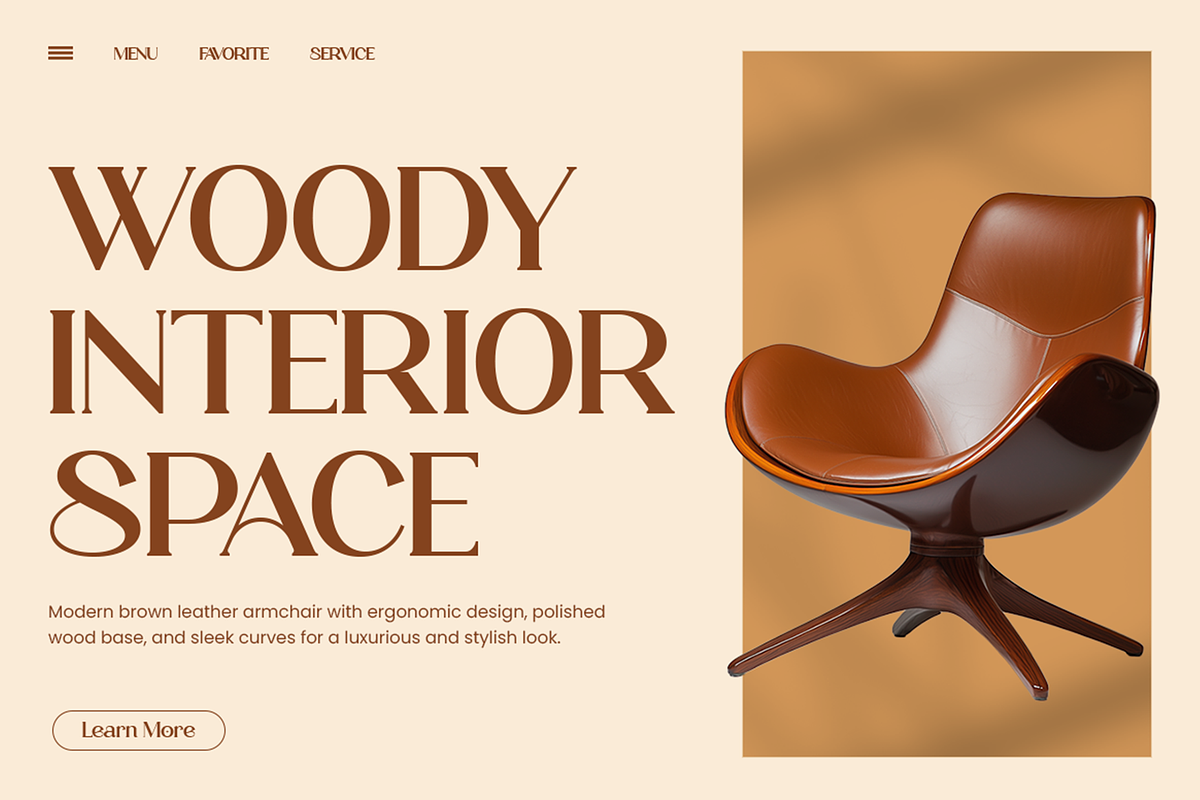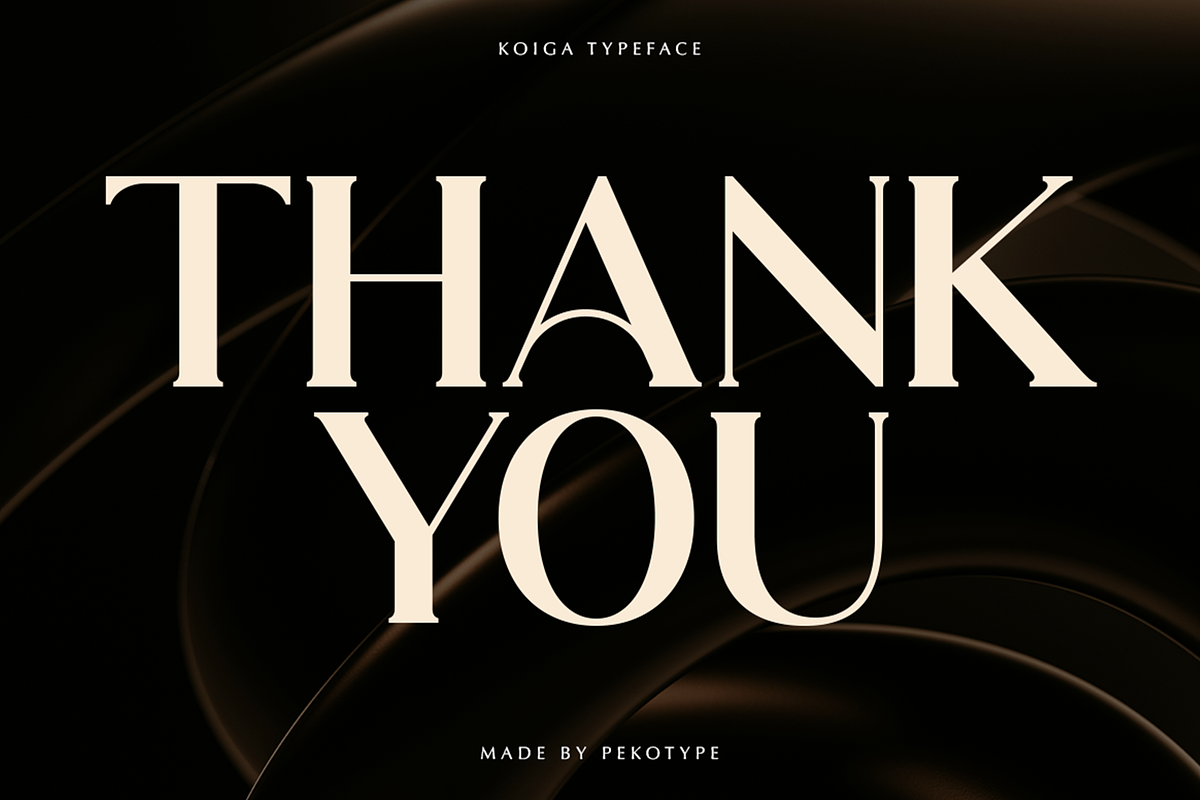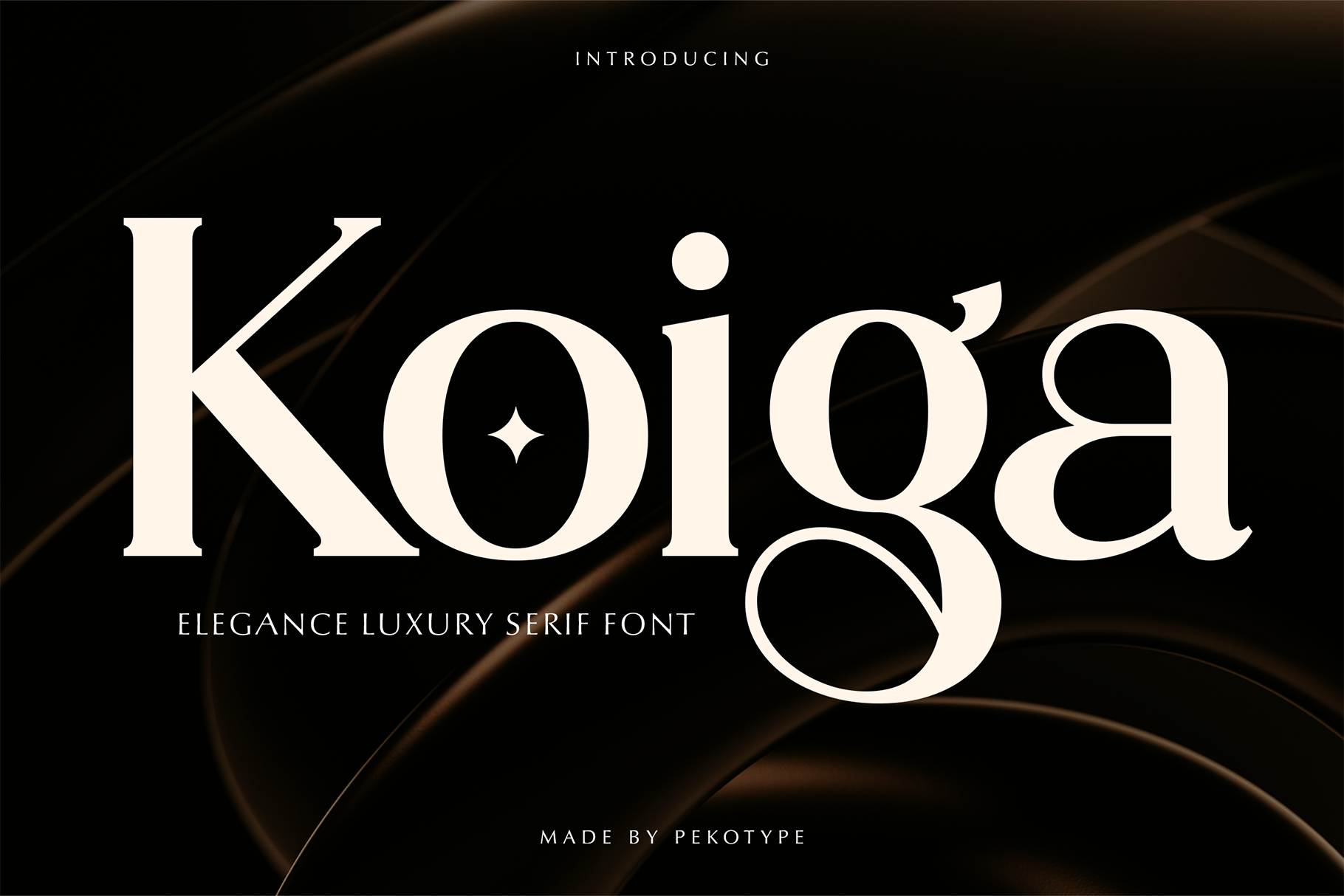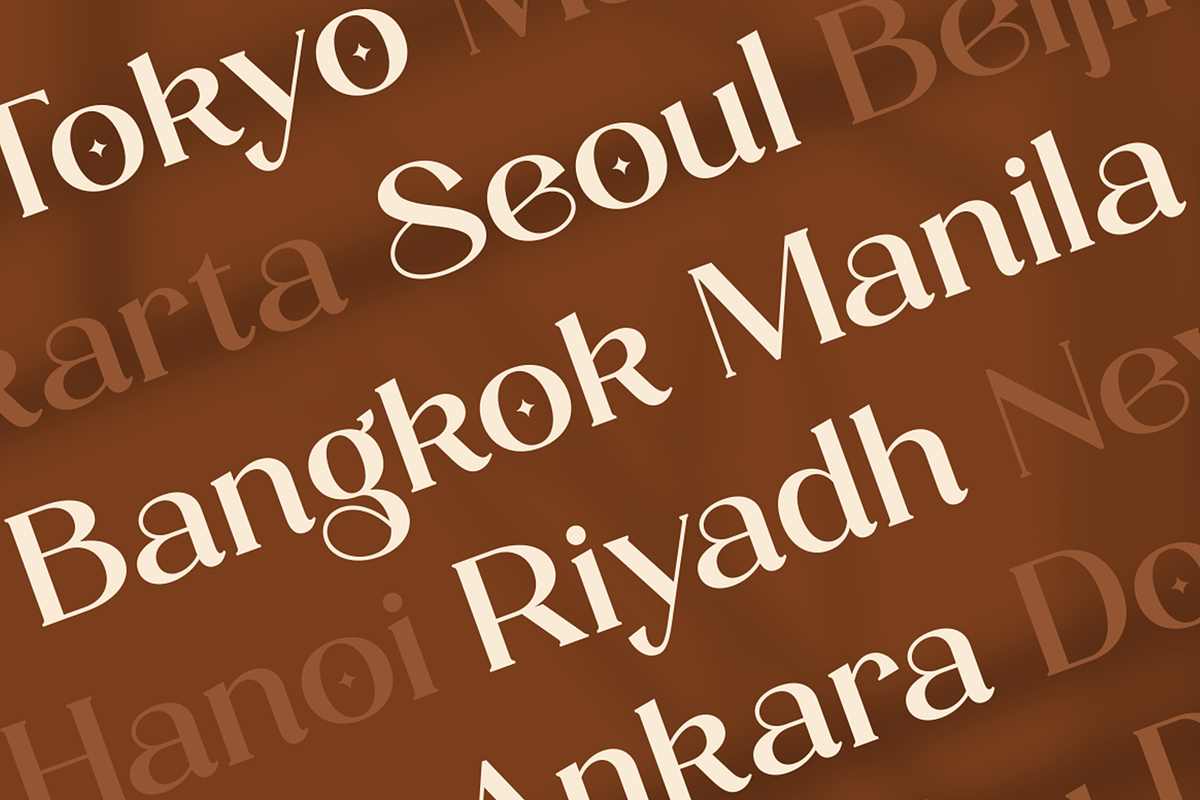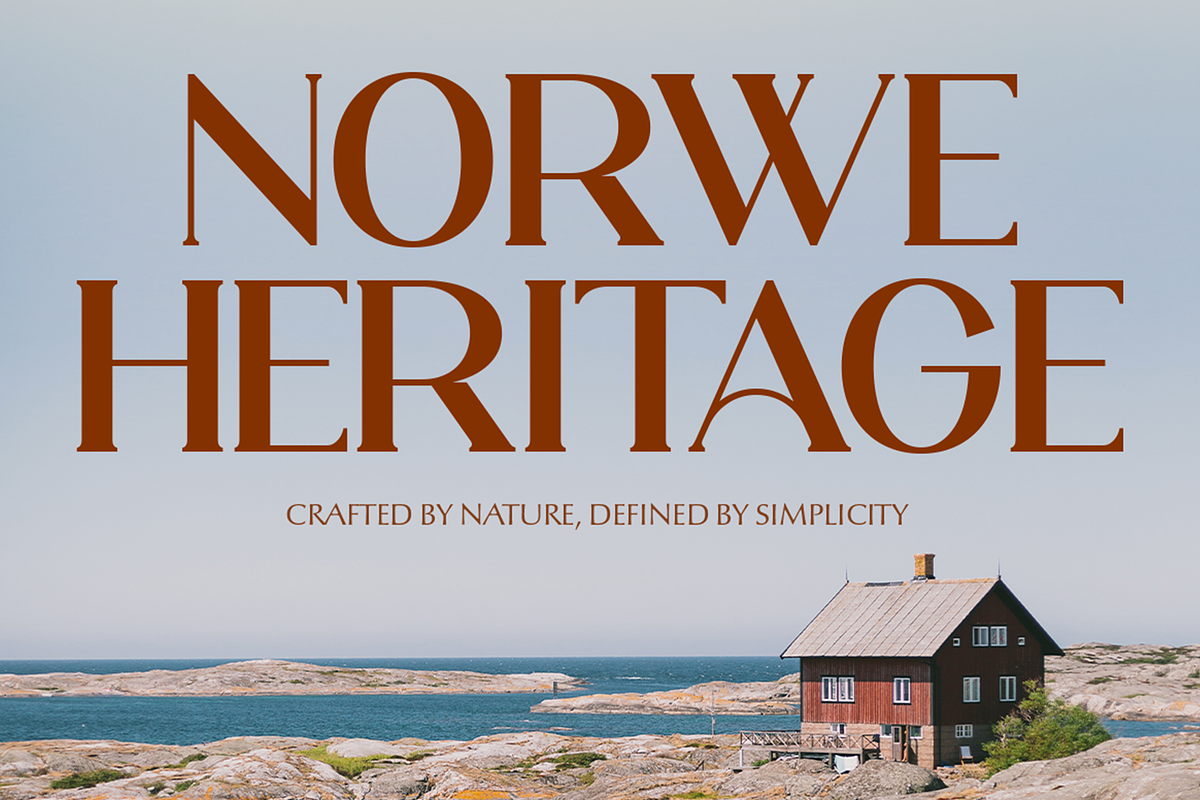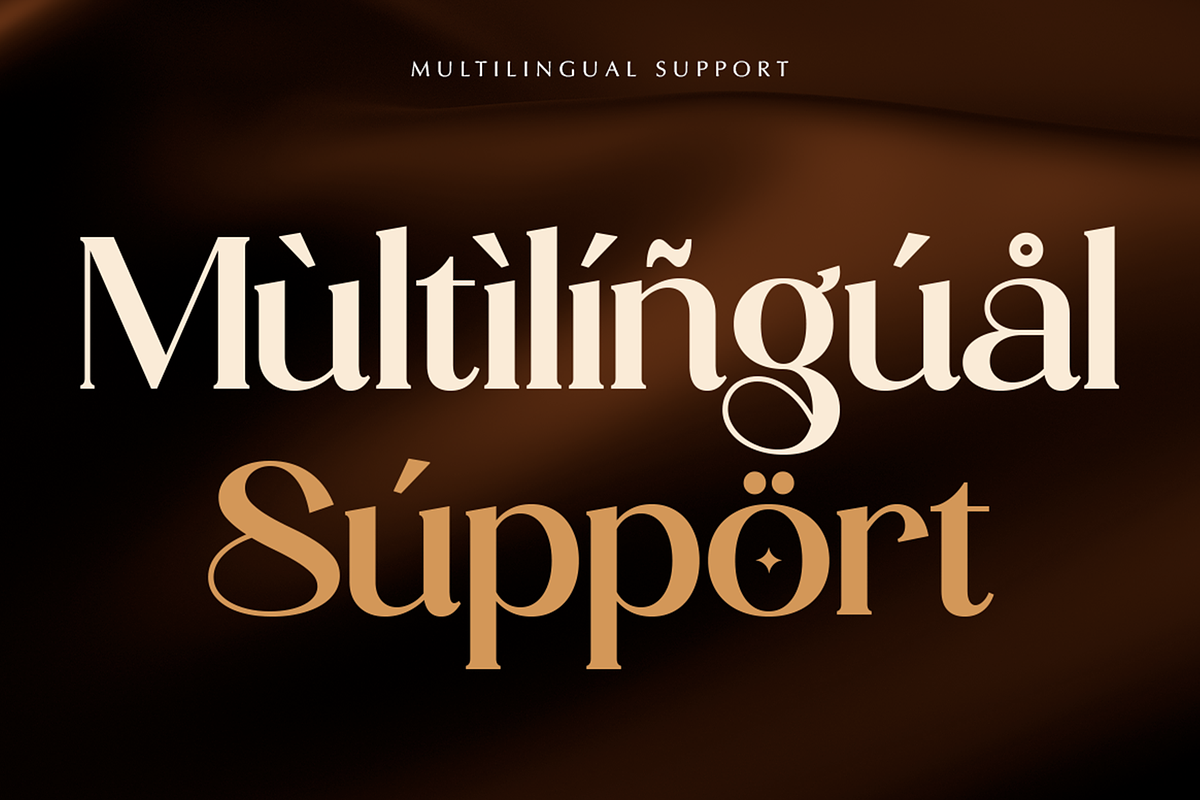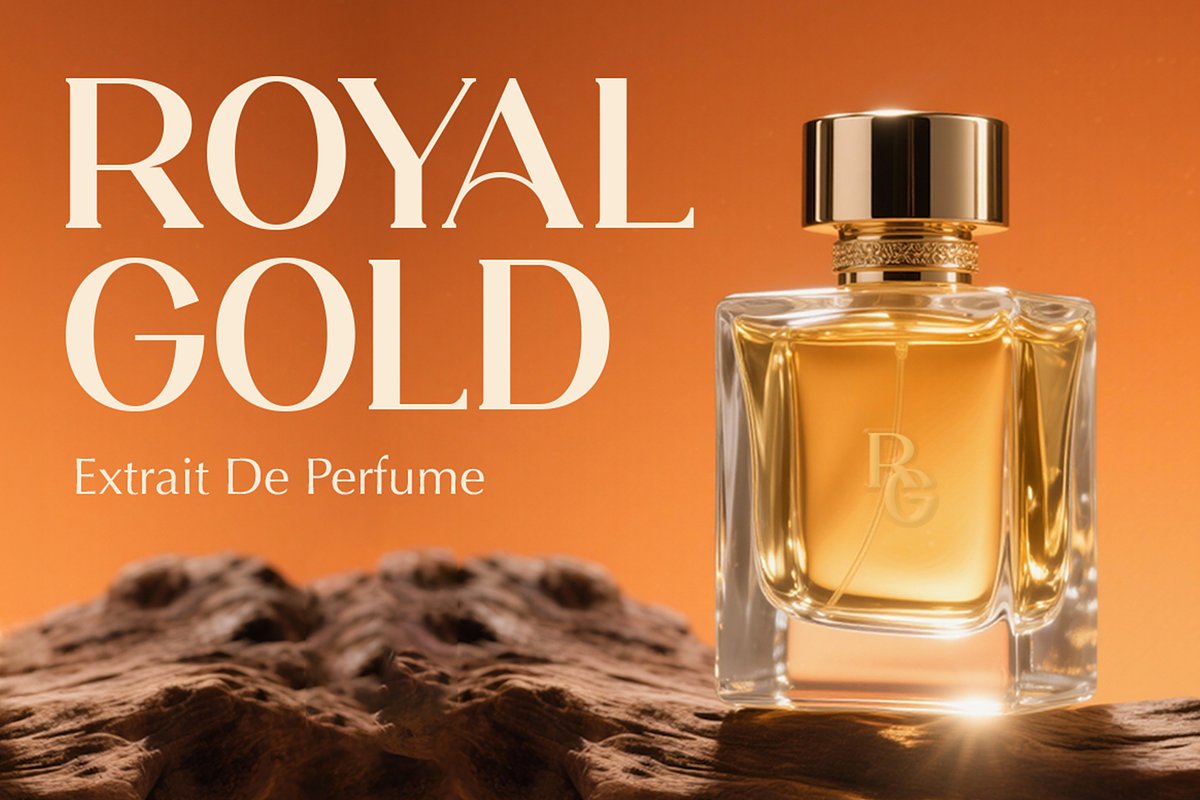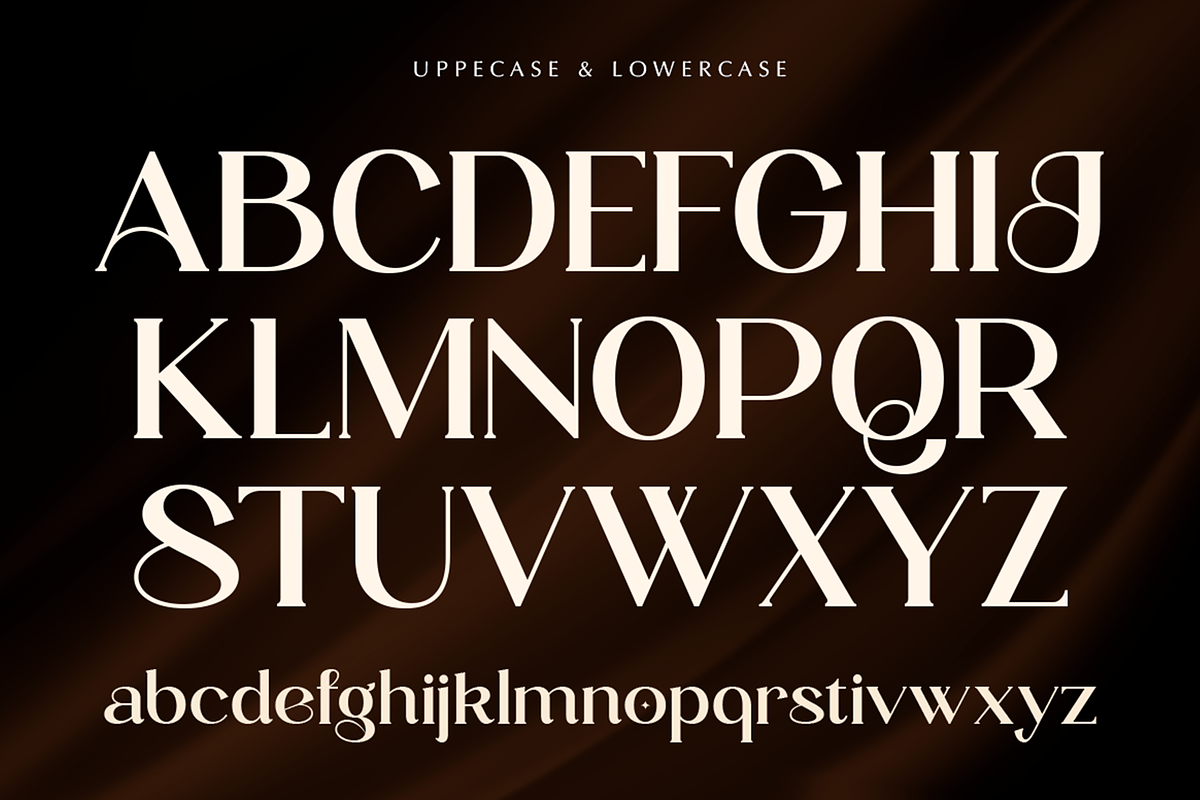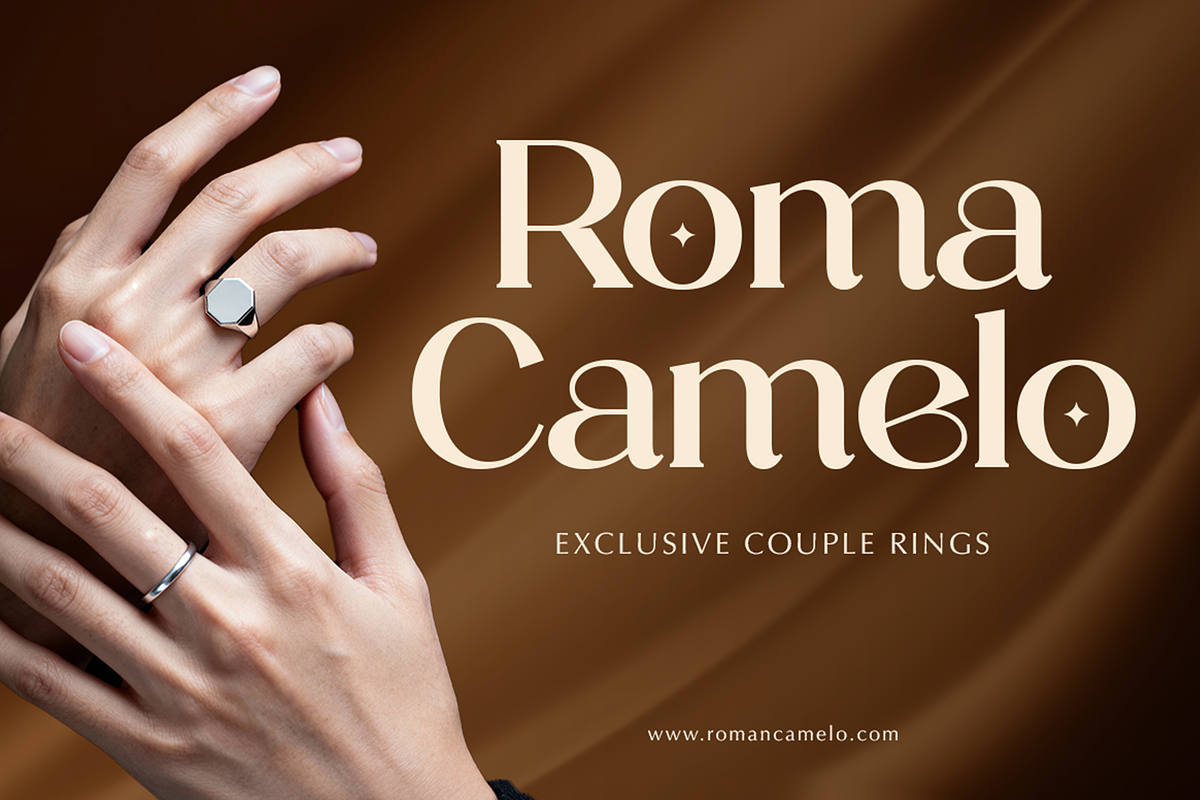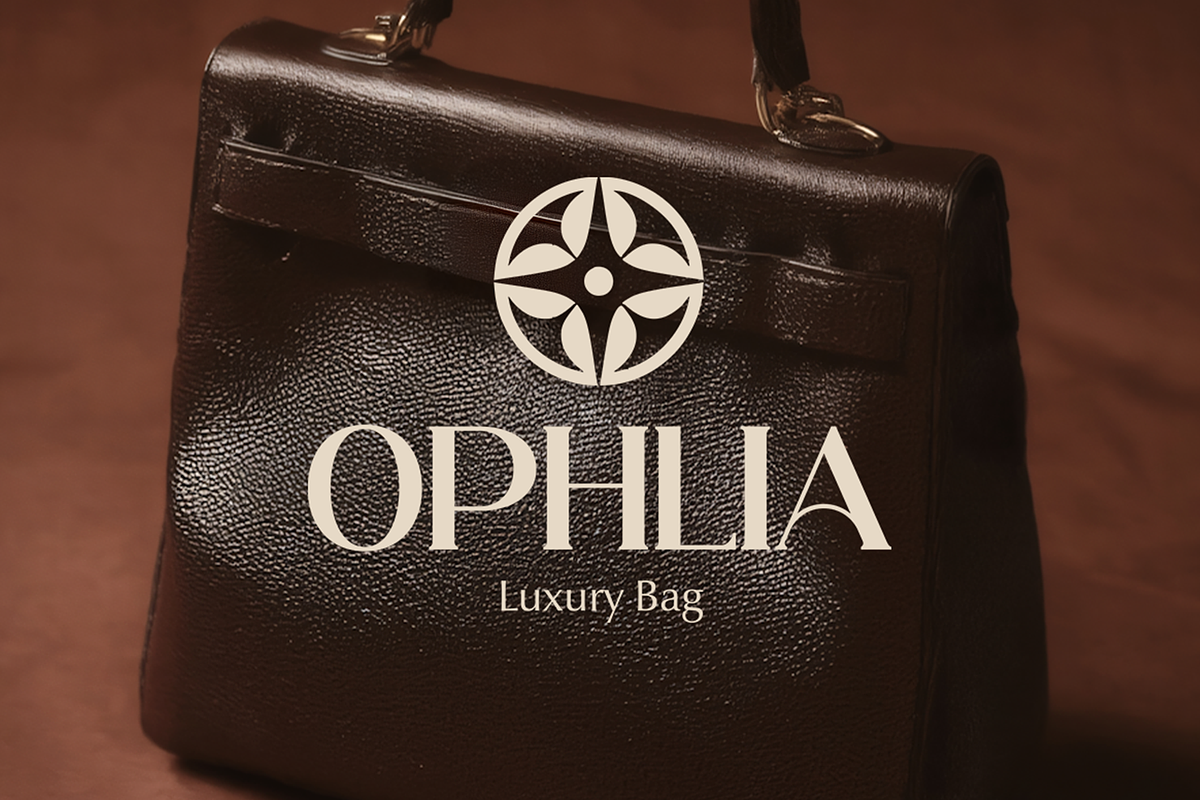
Koiga - Elegant Serif Logo Font
Koiga is an elegant serif font designed to bring a touch of luxury and class to your designs. It features beautiful, smooth curves and high-contrast lines that make any text look expensive and sophisticated. If you're looking for a font that feels "high-end" but is still very easy to read, Koiga is the perfect choice for creating a timeless and professional look.
This font is super versatile and works perfectly for premium branding—like perfume labels, luxury bags, or high-fashion magazines. It’s also a great fit for classy home decor logos, jewelry brands, and elegant wedding invitations. Whether you're designing a chic Instagram post or a stylish logo for a boutique, Koiga will make your work stand out with effortless elegance.